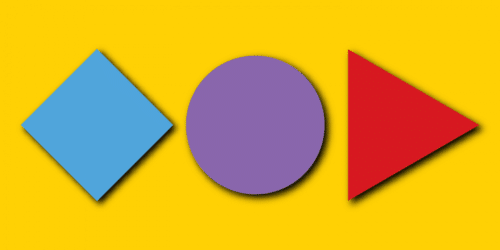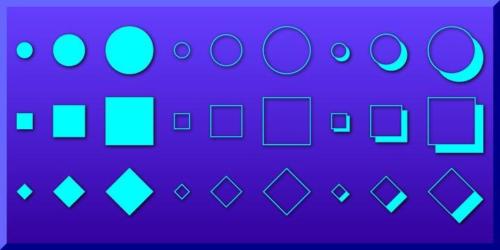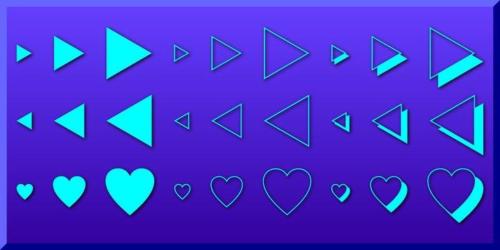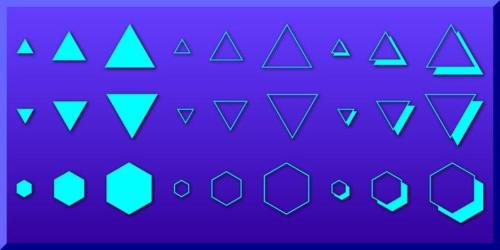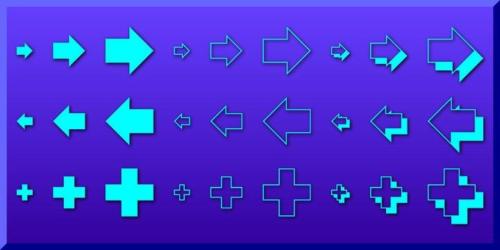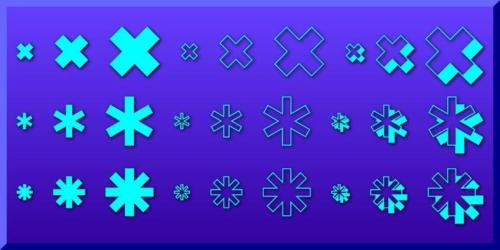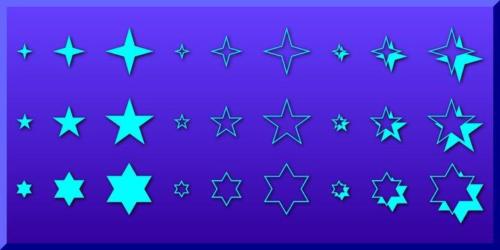
Basic Bullets is a dingbat font published by Gerald Gallo Fonts. Contains 19 bullet designs in solid, outline, and outline shaded.
- Designer: Gerald Gallo